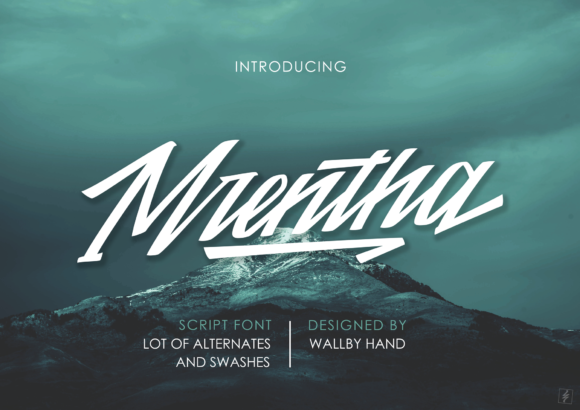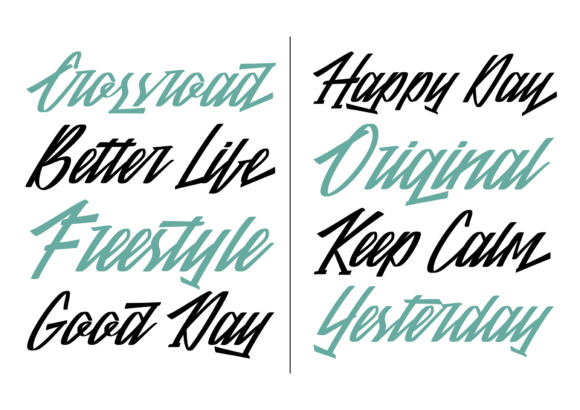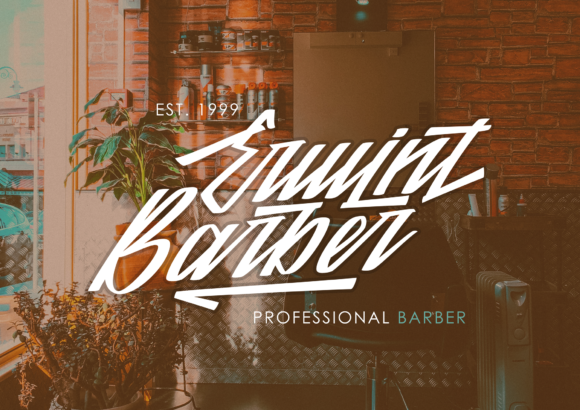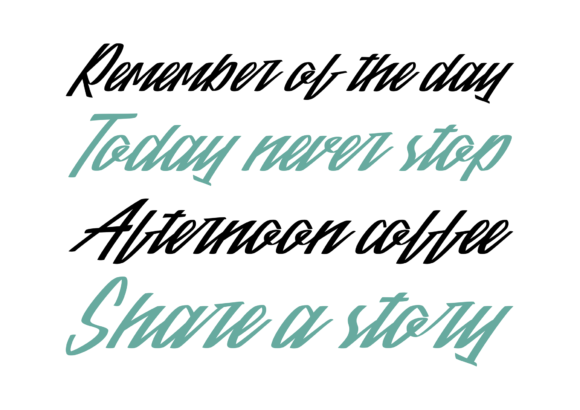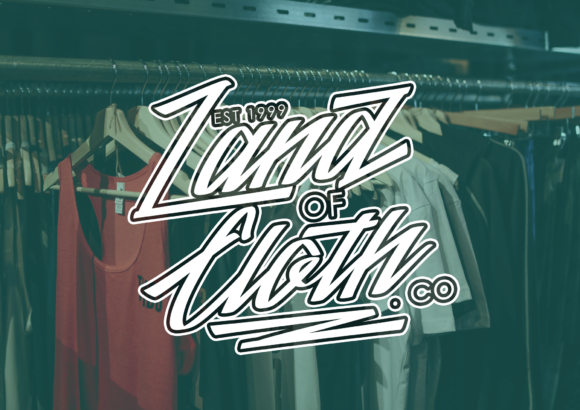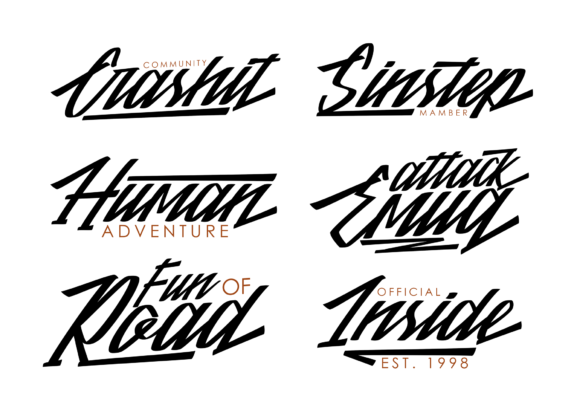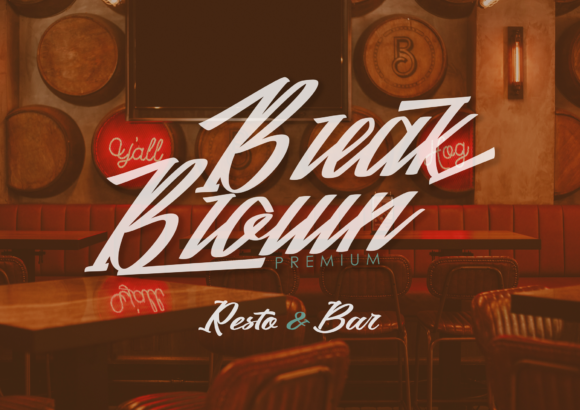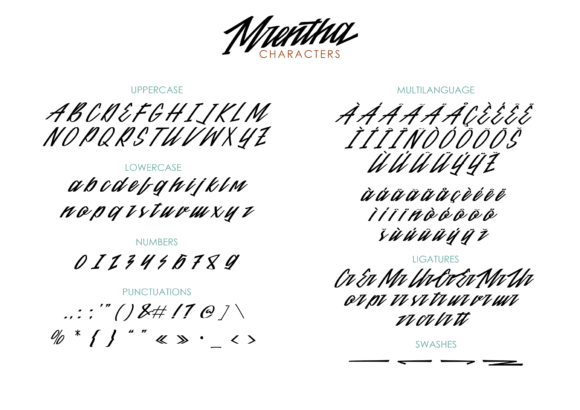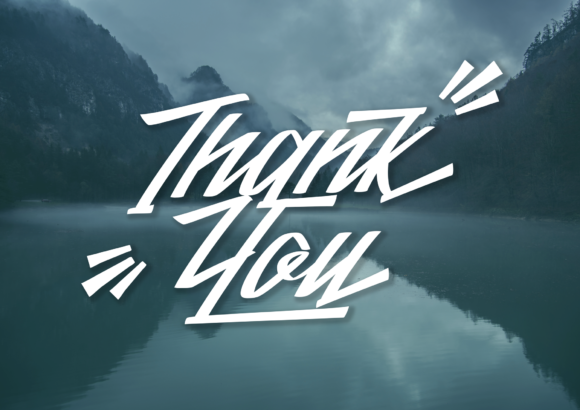
Mrentha Font
About Mrentha Font
Mrentha is a script font with a great personality. It features amazing alternates and swashes and it’s perfect for logos, social media posts, branding, packaging, t-shirts and much more!